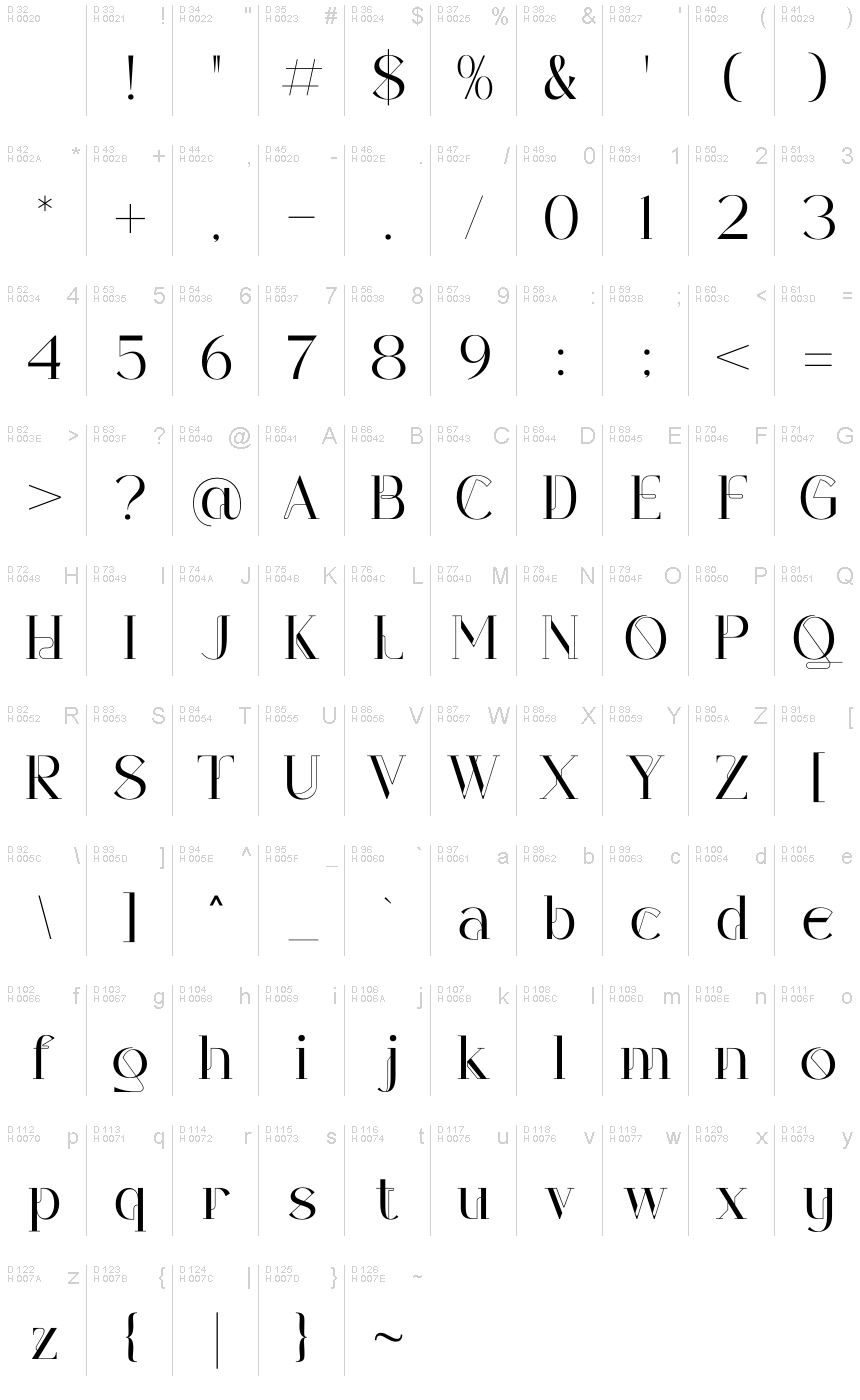
Waredosk
Waredosk, a captivating display font crafted by Storytype Studio, exudes a harmonious blend of sophistication and modernity. Its elegant, yet striking letterforms command attention, with delicate serifs that seamlessly transition into the flowing curves. The font's balanced proportions and refined details evoke a sense of refined elegance, making it a versatile choice for a wide range of design applications.
Waredosk's versatility shines through, making it an ideal selection for headings, branding, and editorial projects that seek to convey a touch of refined sophistication. Its distinctive character lends itself well to creating impactful visual narratives, whether in print or digital media, captivating audiences with its timeless allure.